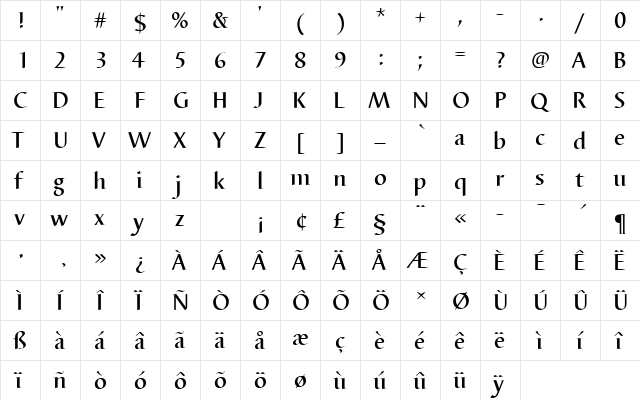
BarbedorTMedRo1 Regular Font Preview
BarbedorTMedRo1 Regular
Design Context for BarbedorTMedRo1 Typeface
BarbedorTMedRo1 takes a measured approach to typography — its balanced proportions and neutral character make it a reliable workhorse for both digital and print work.